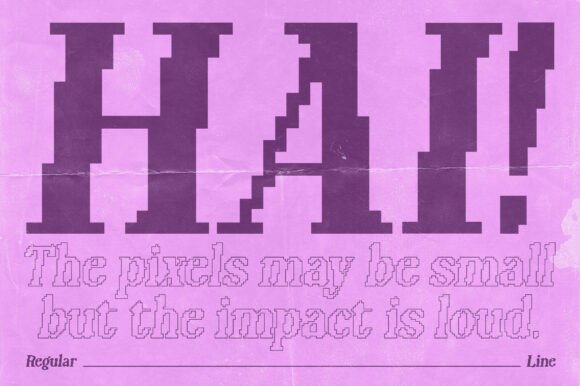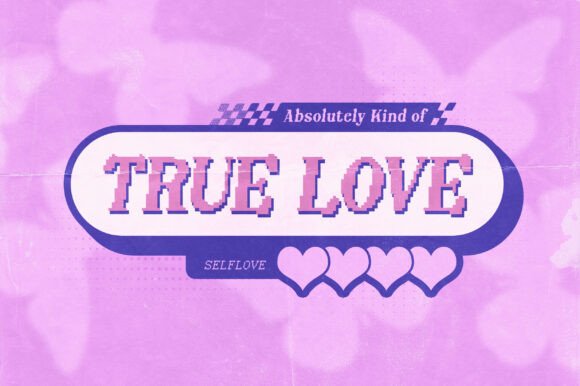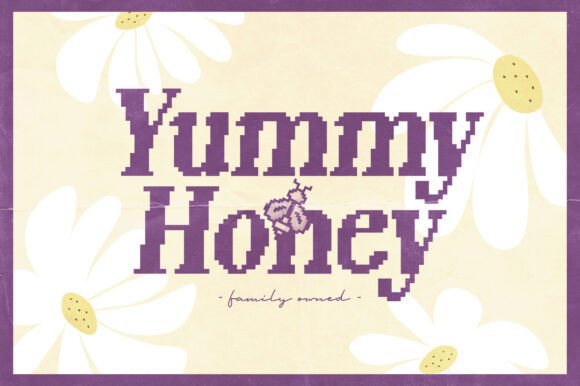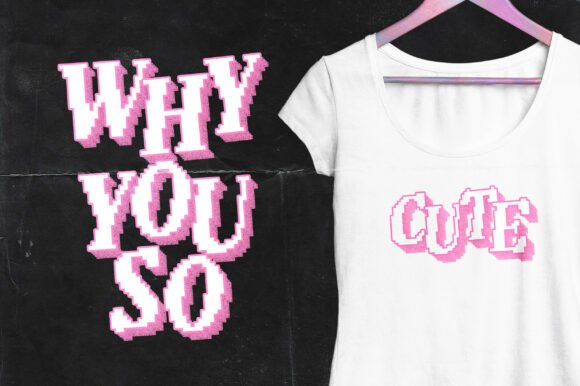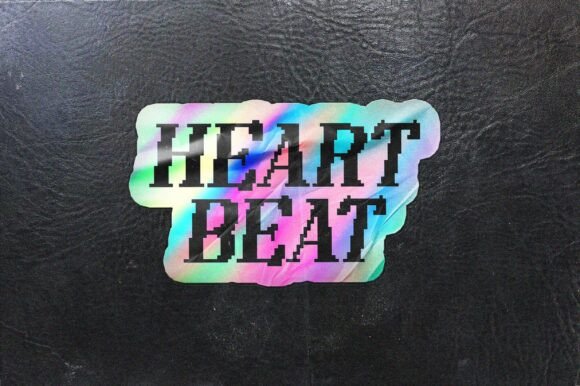
Introduction to Sky-pixel Font
Have you ever been captivated by the nostalgic charm of a bygone era, where pixels danced across screens and the digital world was a playground of endless possibility? For designers, the allure of retro-futurism is a potent source of inspiration, and the Sky-pixel Font is the perfect catalyst for unlocking that creative potential.
As a design resource, Sky-pixel Font offers a unique blend of vintage and modern flair, infusing each project with a dash of nostalgia and a healthy dose of playfulness. With its high-quality, free download, designers can experiment with a wide range of creative projects, from eye-catching posters to daring branding, all without sacrificing the quality of their design.
Whether you’re working on a design project that requires a transparent background or a bold, eye-catching visual statement, the Sky-pixel Font is an invaluable tool in your creative arsenal. So why settle for a generic font when you can tap into the captivating aura of Sky-pixel Font and unleash your inner designer?
Key Features of Sky-pixel Font
- Transparent Background: This font allows for a seamless integration with any design, providing a clean and minimalist look.
- High-Quality Design: The Sky-pixel Font is designed to be visually appealing, making it an ideal choice for creative projects that require a touch of elegance.
- Unique Pixelated Design: The Sky-pixel Font features a unique pixelated design, adding a touch of retro charm to any creative project.
Honest Review: Sky-pixel Font
I recently stumbled upon the Sky-pixel Font and I must say it’s a great addition to any designer’s toolbox. This free download is a high quality design resource that can elevate any creative project. With its unique, futuristic aesthetic, it’s perfect for futuristic or sci-fi themed designs.
- ✨ What works well: The Sky-pixel Font is highly versatile and can be used for both display and body text. Its transparent background makes it easy to layer over images or other design elements.
However, I did encounter a few limitations. ⚠️ The font may not be suitable for very large text sizes, as it can become pixelated and difficult to read. Additionally, the font may not be compatible with all operating systems or browsers.
Overall, I’m impressed with the Sky-pixel Font and would definitely recommend it to other designers. Its high quality and unique aesthetic make it a great addition to any design library.
Introduction to Sky-pixel Font
Sky-pixel Font is a high-quality, free design resource that can be used to add a unique touch to your creative project. With its transparent background, this font is perfect for designers who want to create visually appealing and modern designs.
Tips for Getting the Most Out of Sky-pixel Font
To get the most out of Sky-pixel Font, experiment with different font sizes, colors, and combinations. You can also use it to create custom graphics and icons.
Sky-pixel Font is perfect for:
- Designing modern and minimalist graphics
- Creating unique and eye-catching social media posts
- Adding a personal touch to presentations and documents